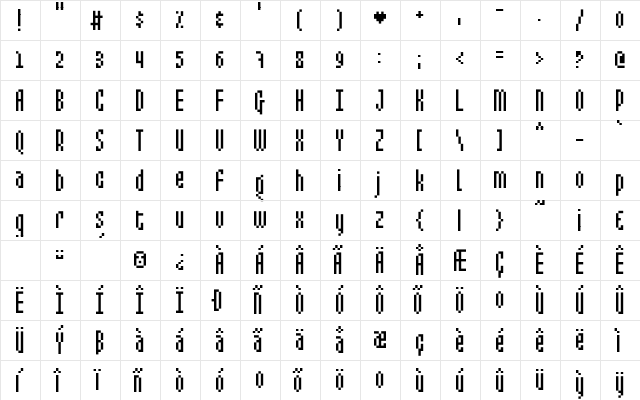
Mixelate Regular
Design Context for Mixelate Typeface
Mixelate takes a measured approach to typography — its balanced proportions and neutral character make it a reliable workhorse for both digital and print work.